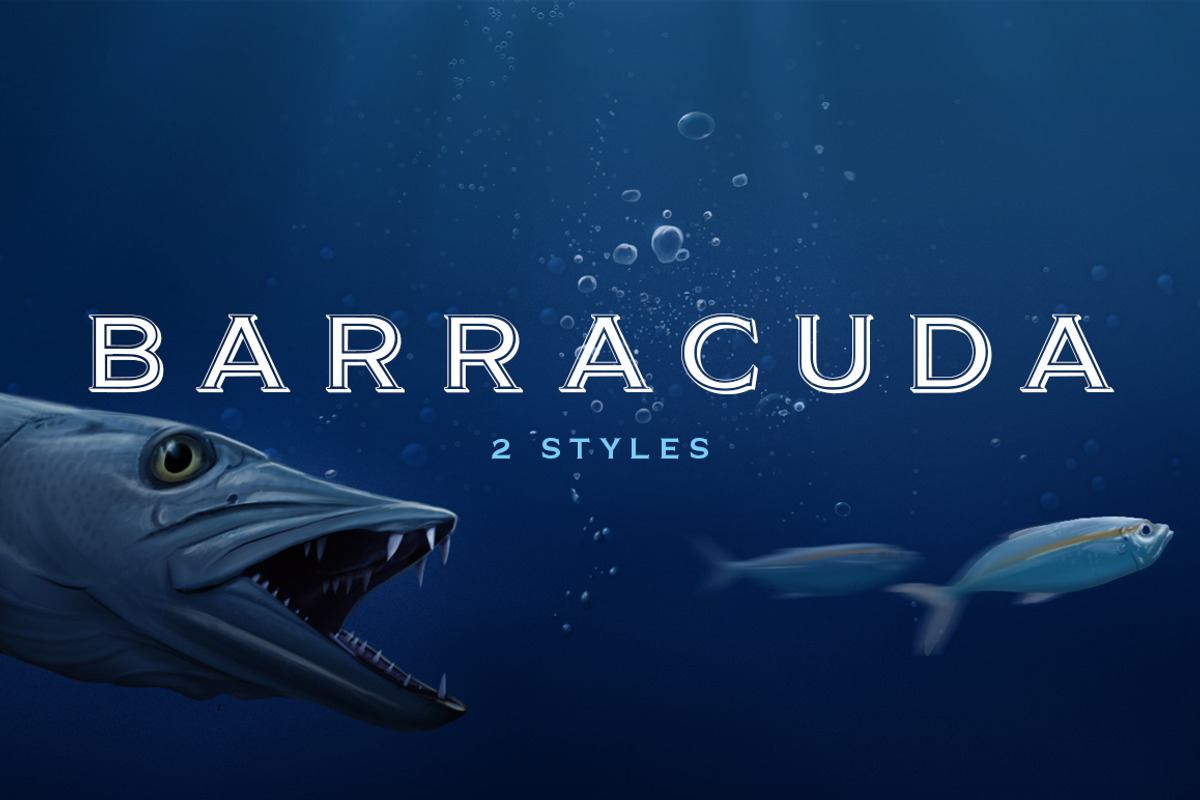
Barracuda Display - Logo Font Free Download
Barracuda Display - Logo Font Free Download is a bold and dynamic typeface designed specifically for logos, headlines, and branding projects. With its strong, geometric lines and sharp details, this font makes a powerful visual impact, making it perfect for modern, high-energy designs.
The Barracuda Display font combines clarity with assertiveness, making it ideal for tech brands, sports teams, music events, or any project that needs a bold, contemporary look. Its unique character shapes and bold presence ensure it stands out in any logo or promotional material.
Make your designs memorable with the bold, modern style of Barracuda Display! ✨